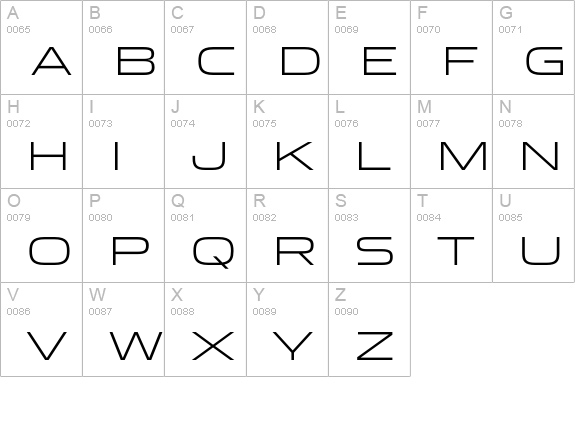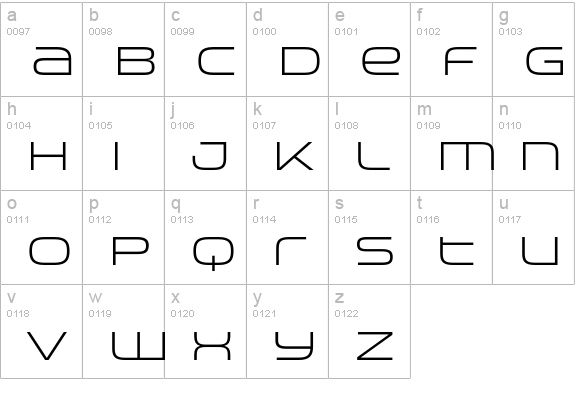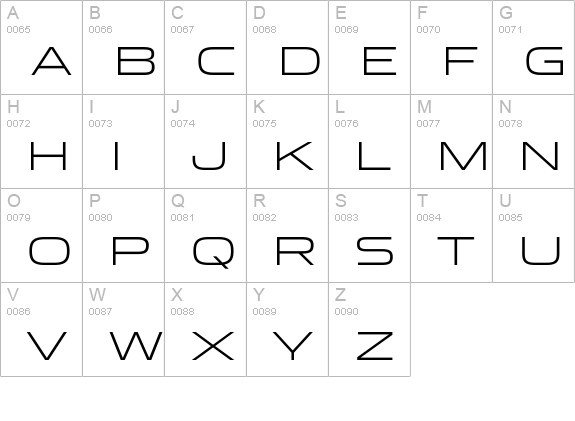
HouseMovements-Runway Font Details
HouseMovements-Runway font is a stylish and modern typeface designed to add a touch of sophistication to your projects. With its sleek lines and elegant curves, this font is perfect for creating eye-catching designs for various purposes. Whether you're working on branding, advertising, or any other creative project, HouseMovements-Runway font is sure to make a statement. The best part? HouseMovements-Runway font is completely free to download at FontsMarket.com, making it easily accessible for all your design needs. So go ahead and give your projects a touch of class with this beautiful font today!